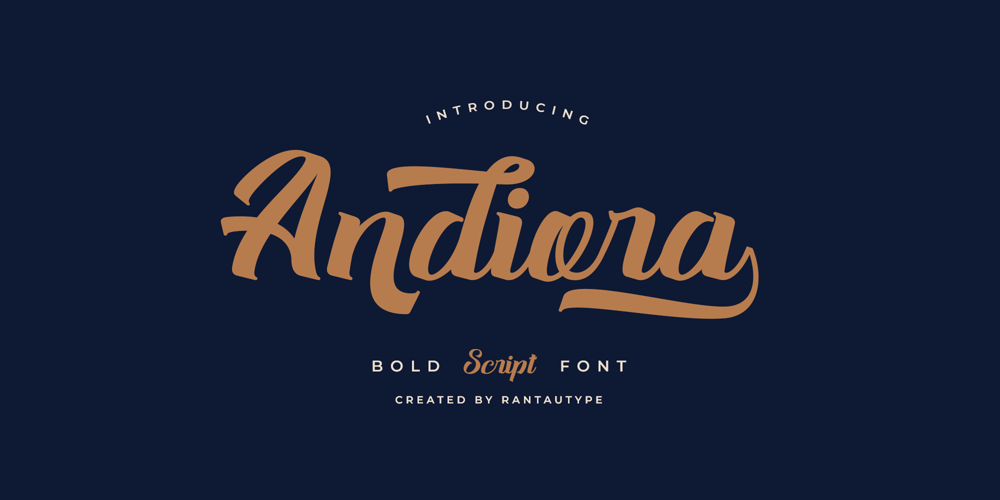
Andiora Font Family was designed by Yudi Pratama Chandra and published by RantauType. Andiora contains 1 styles and family package options. Andiora is a script font with strong style. Andiora It come with a smooth shape and make you design more awesome. Andiora is a beautiful choice for any creative endeavor, chic, lifestyle design such as logos, title, watermark on photography, cover, branding, display and magazine, wedding event, quotes, album cover, business card, corporate, business project and many other design project. Andior to elevate you branding!!What you have: Standar character A-Z and a-z Numberial and Functional Ligature and alternate Works on PC & Mac Simple installations Accessible in Adobe Illustrator, Adobe Photoshop, Adobe InDesign, even work on Microsoft Word Fonts include Multilingual Support for: Afrikaans, Albanian, Asu, Basque, Bemba, Bena, Breton, Chiga, Cornish, Dutch, English, Estonian, Filipino, Finnish, Friulian, Galician, Gusii, Indonesian, Irish, Italian, Kabuverdianu, Kalenjin, Kinyarwanda, Luo, Luxembourgish, Luyia, Machame, Makhuwa-Meetto, Makonde, Malagasy, Manx, Morisyen, North, Ndebele, Nyankole, Oromo, Portuguese, Quechua, Romansh, Rombo, Rundi, Rwa, Samburu, Sango, Sangu, Scottish, Gaelic, Sena, Shambala, Shona, Soga, Somali, Spanish, Swahili, Swedish, Swiss, German.Thank you for your purchase!Hope you enjoy with our font!